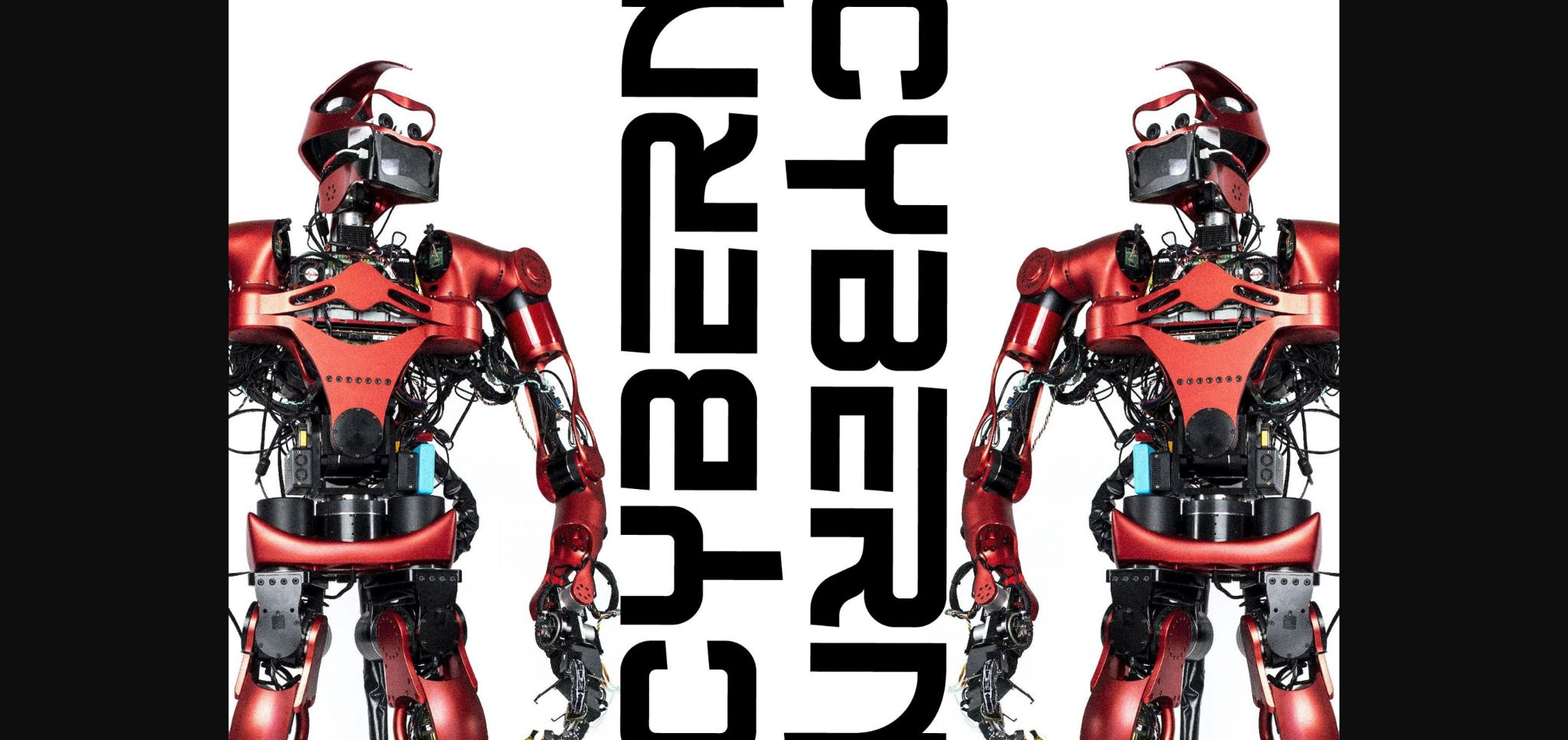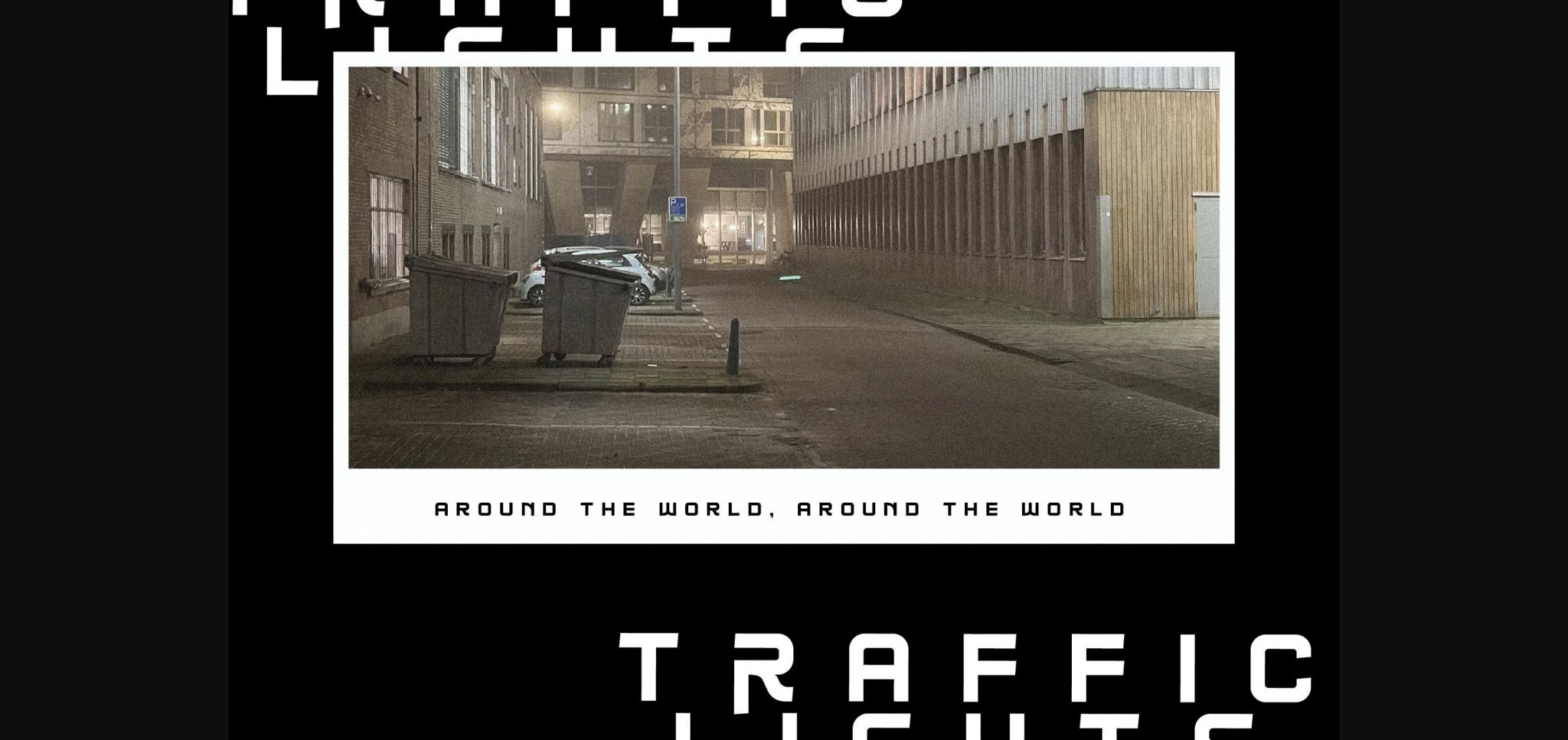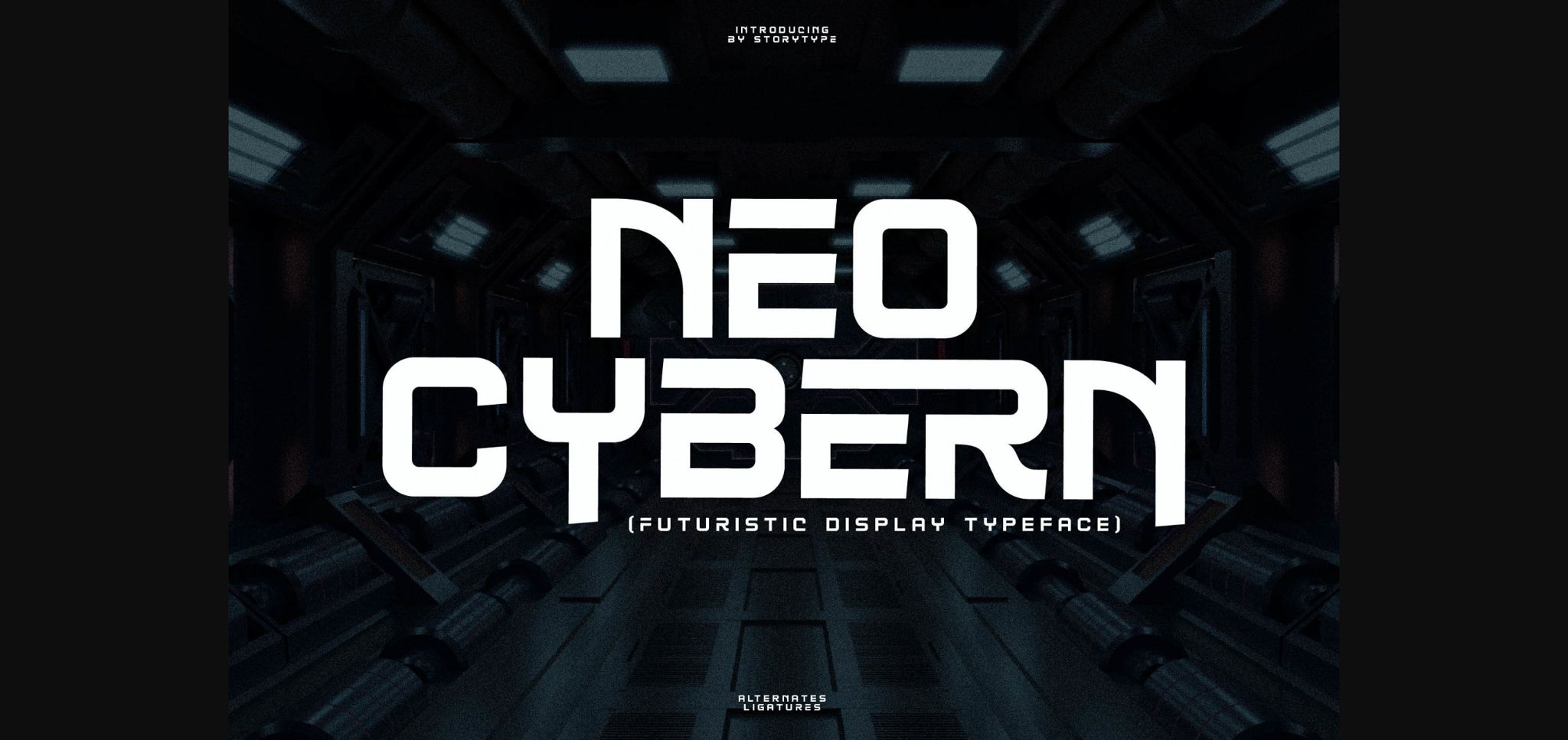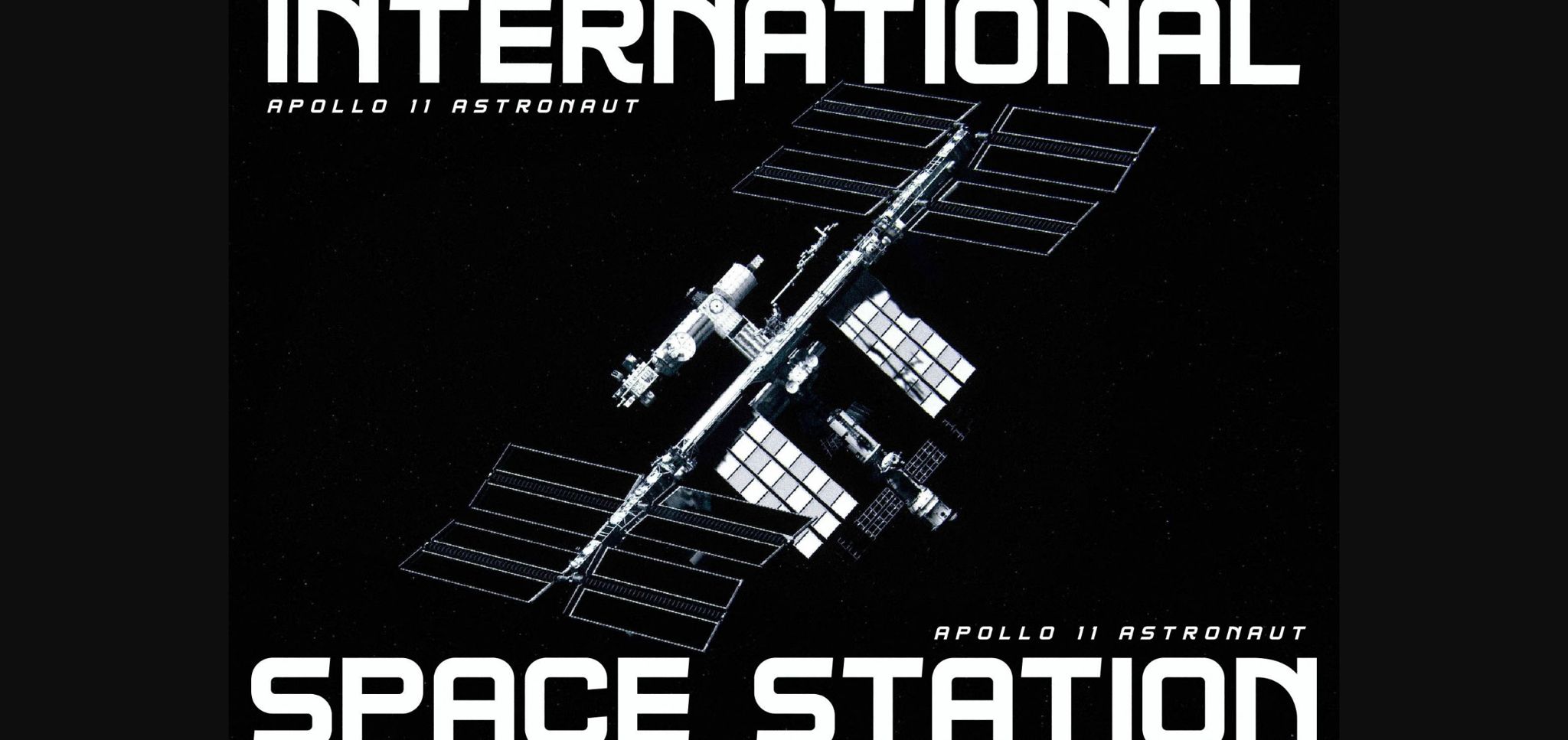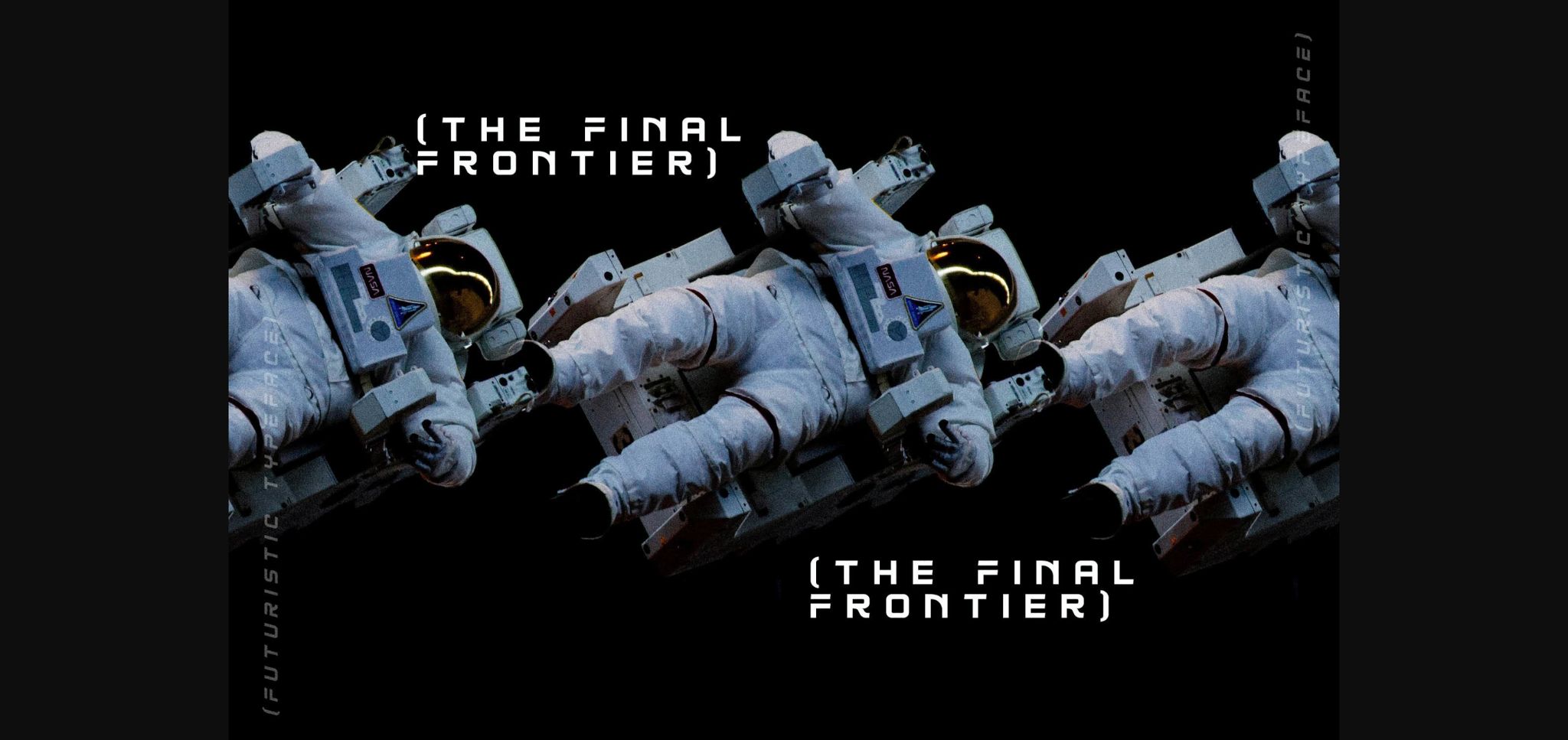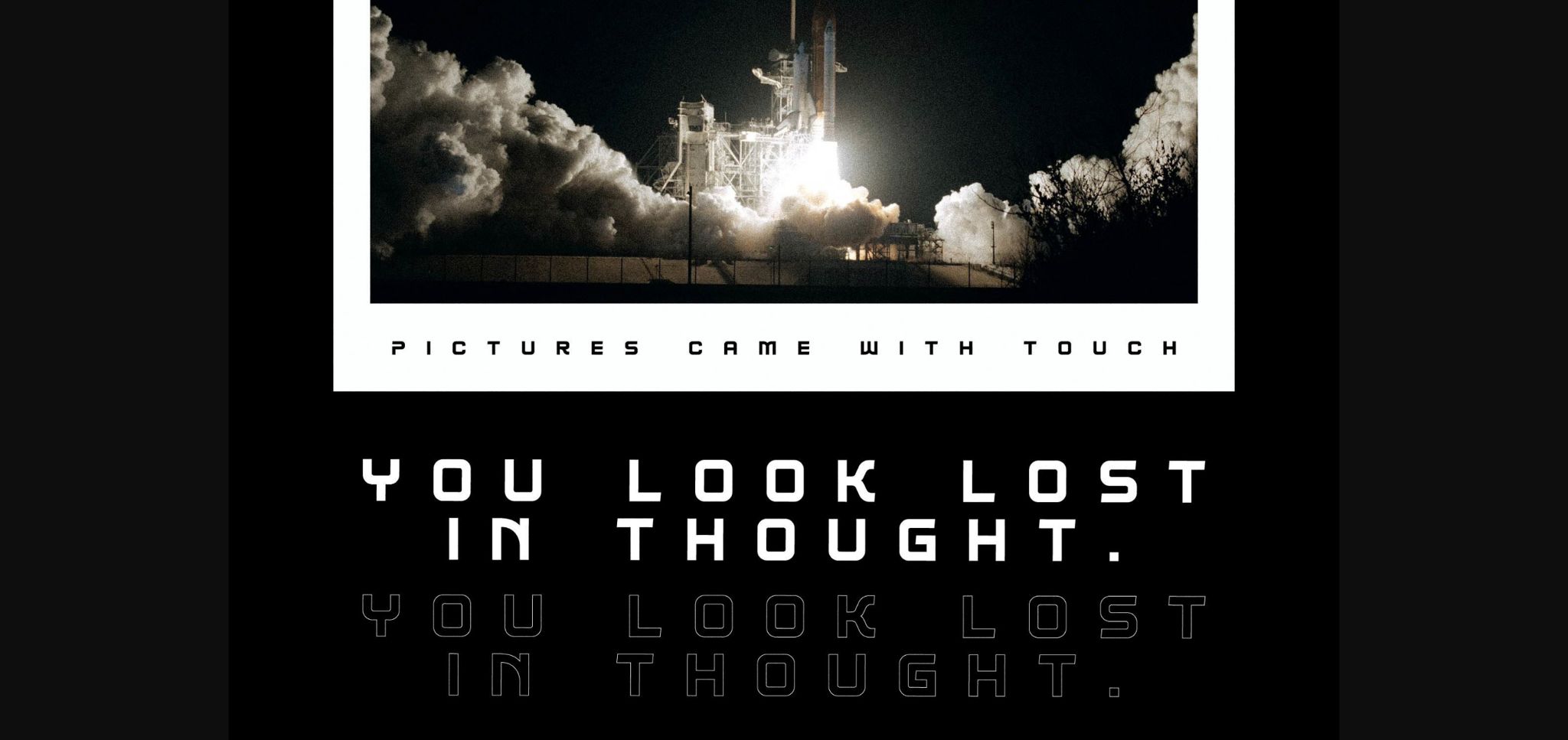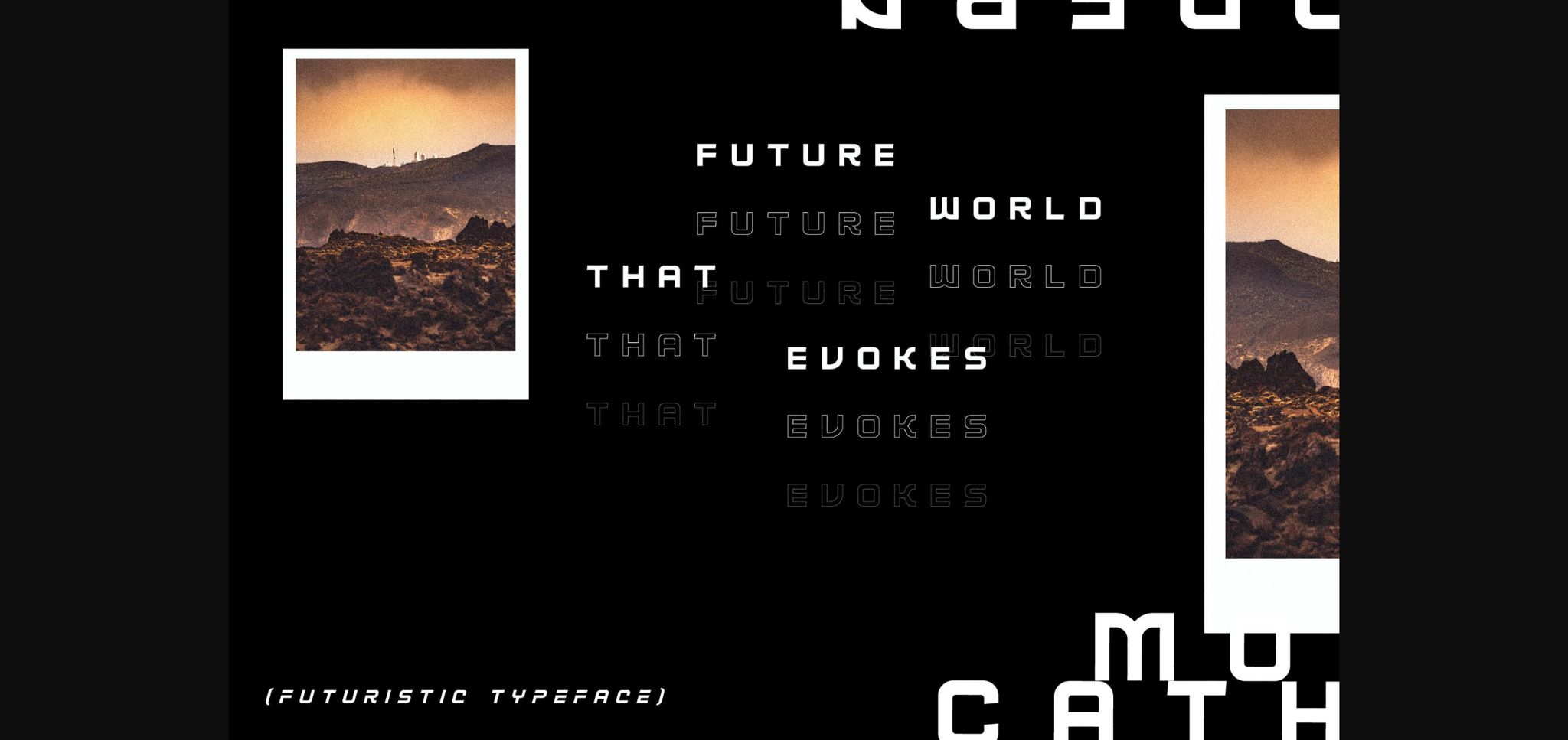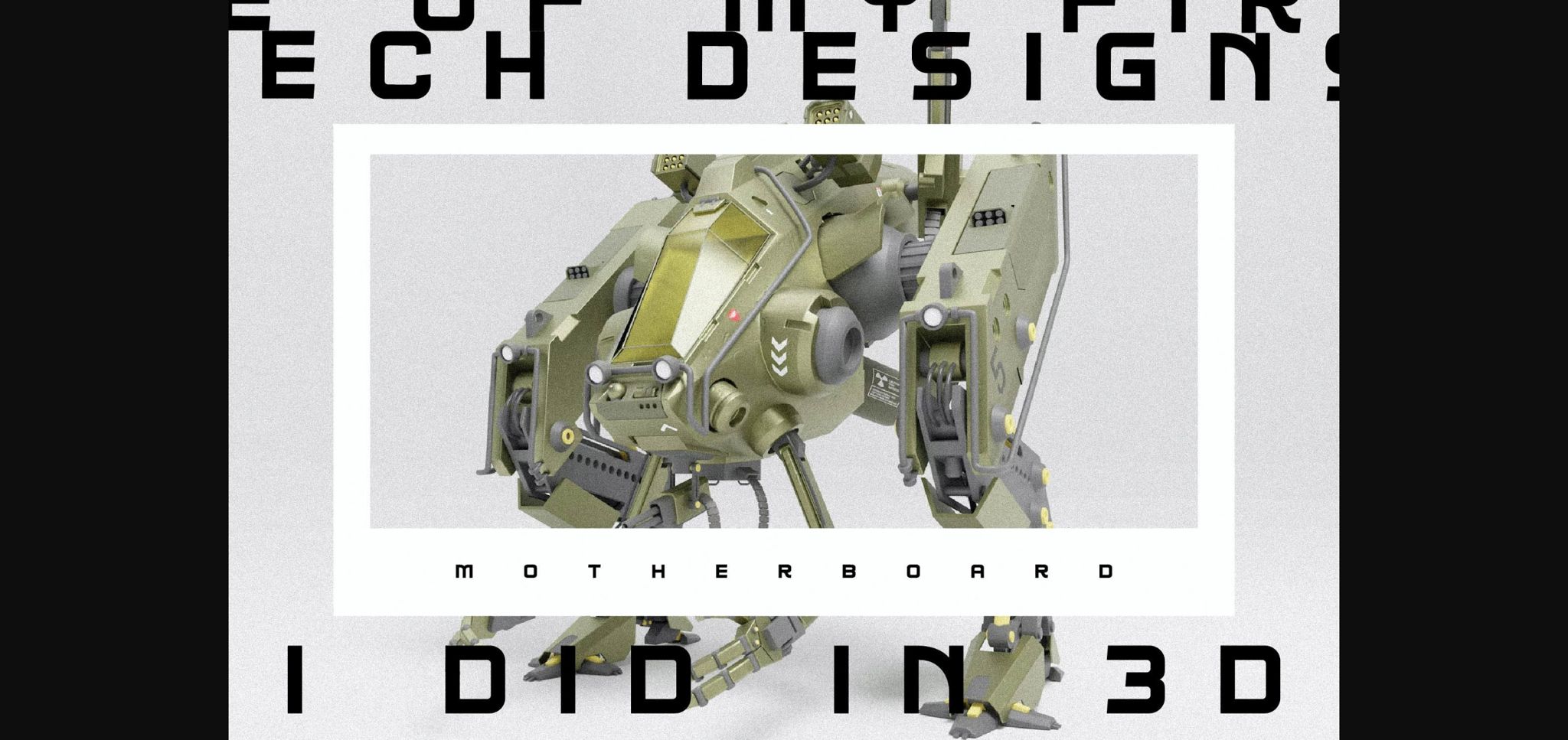
Neo Cybern Font
About Neo Cybern Font
Neo Cybern is a modern and classic sans serif font with a unique style and exquisite look.
This typeface is perfect for an elegant & luxury logo, book or movie title design, fashion brand, magazine, clothes, lettering, quotes, and so much more.